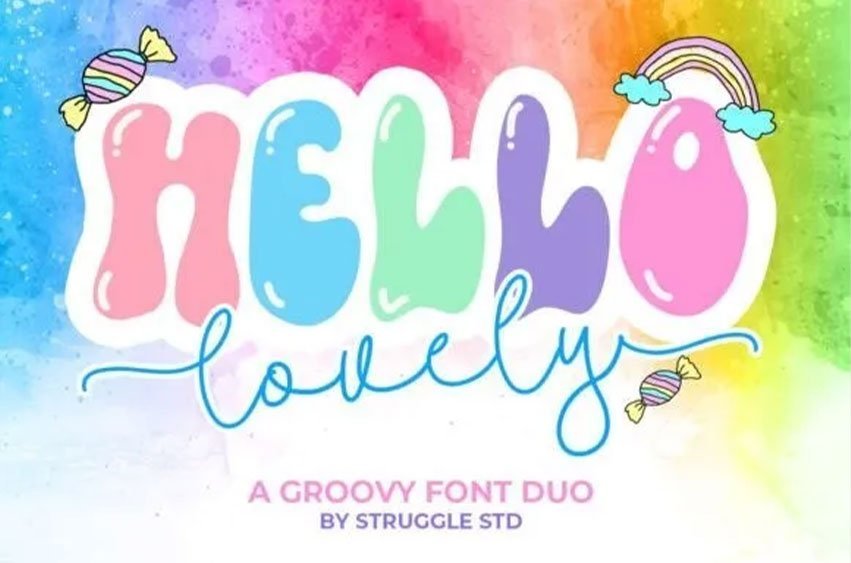
Hello Lovely Font is a grovy and petite (handwritten and display grovy) font duo, featuring a sweet and soft look. This original look will appeal to a variety of crafty ideas, from letterhead and titles to writing implements.